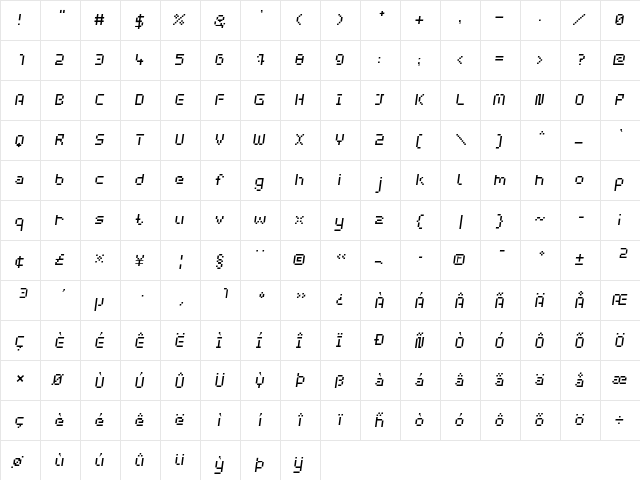
webpixel bitmap Italic
Italic · Manuel Viergutz Manuel Viergutz ·
Foundry Manuel Viergutz
DesignerManuel Viergutz
Design Context for webpixel bitmap Typeface
webpixel bitmap celebrates the constraints of early digital type, turning pixel geometry into a distinctive and immediately recognisable style. The dynamic lean of this cut emphasises speed and emphasis in any layout.
Well-suited to indie game interfaces, retro computing aesthetics, and pixel art-adjacent design work.
Pro Tip: Use webpixel bitmap at sizes that align with its pixel grid for the sharpest rendering — scaling to non-integer multiples can introduce unwanted blur.